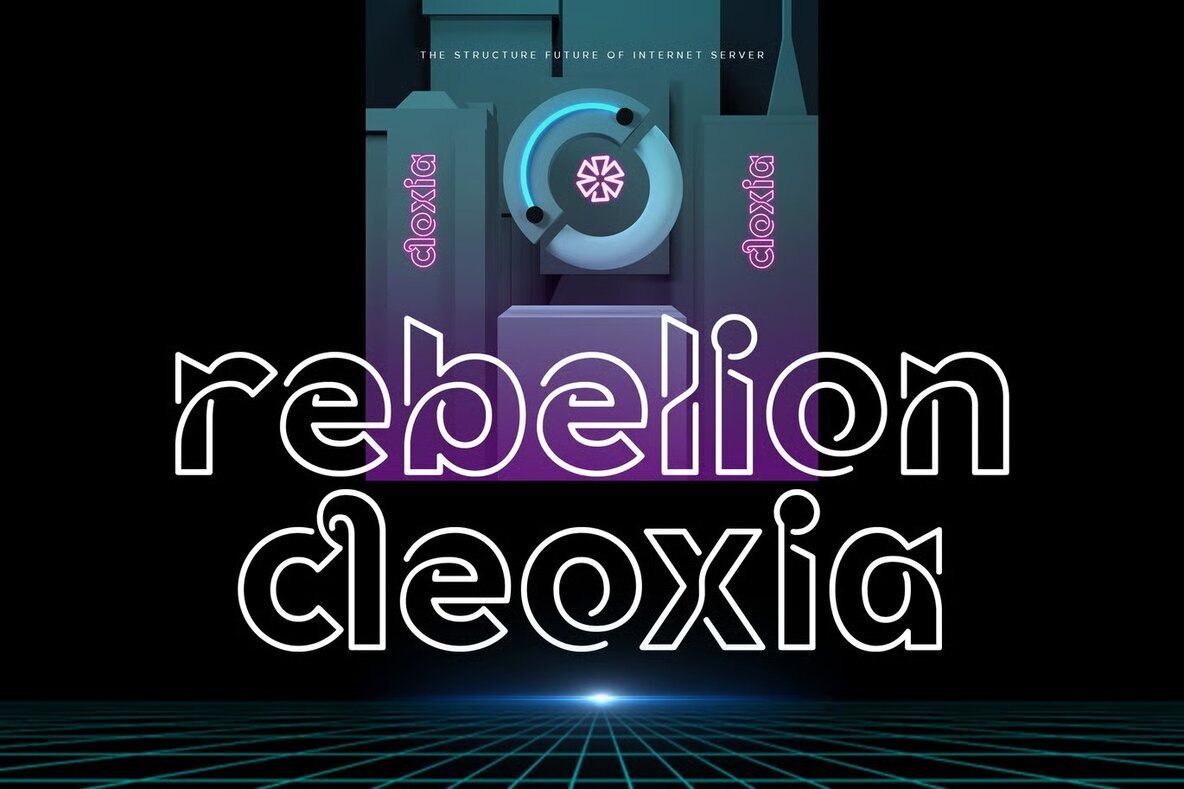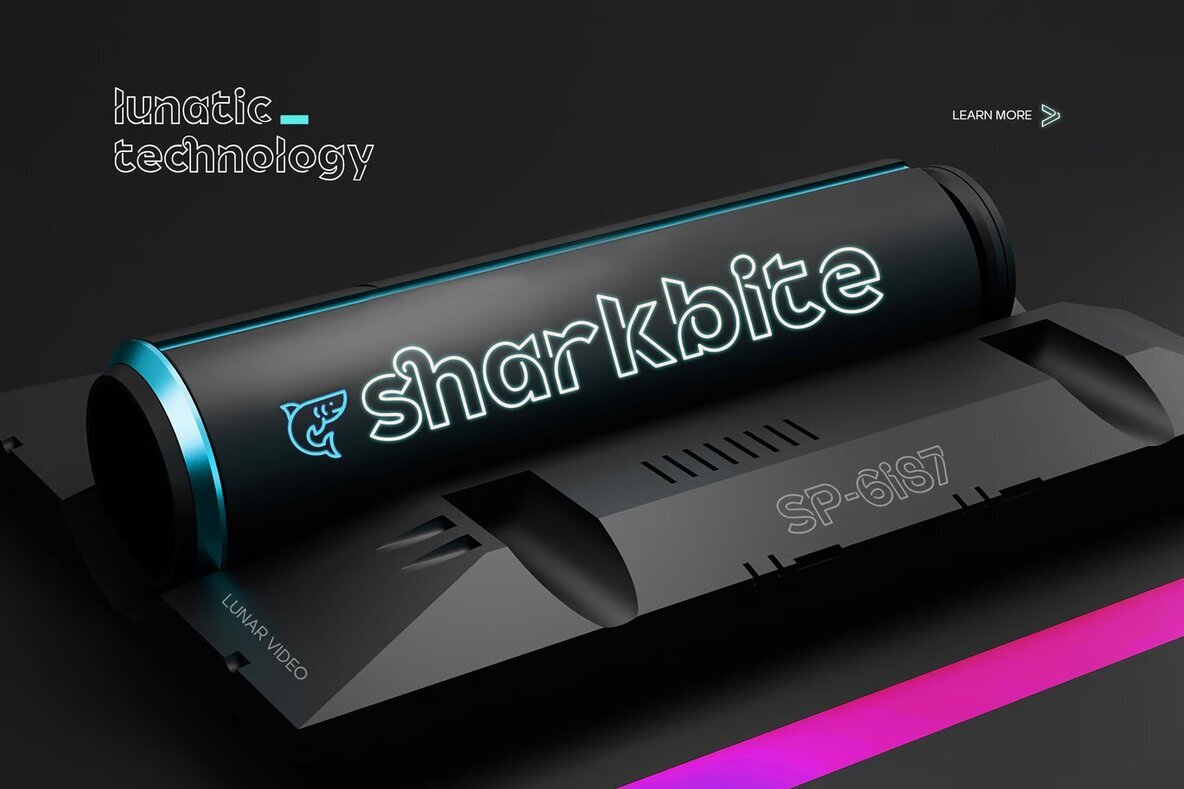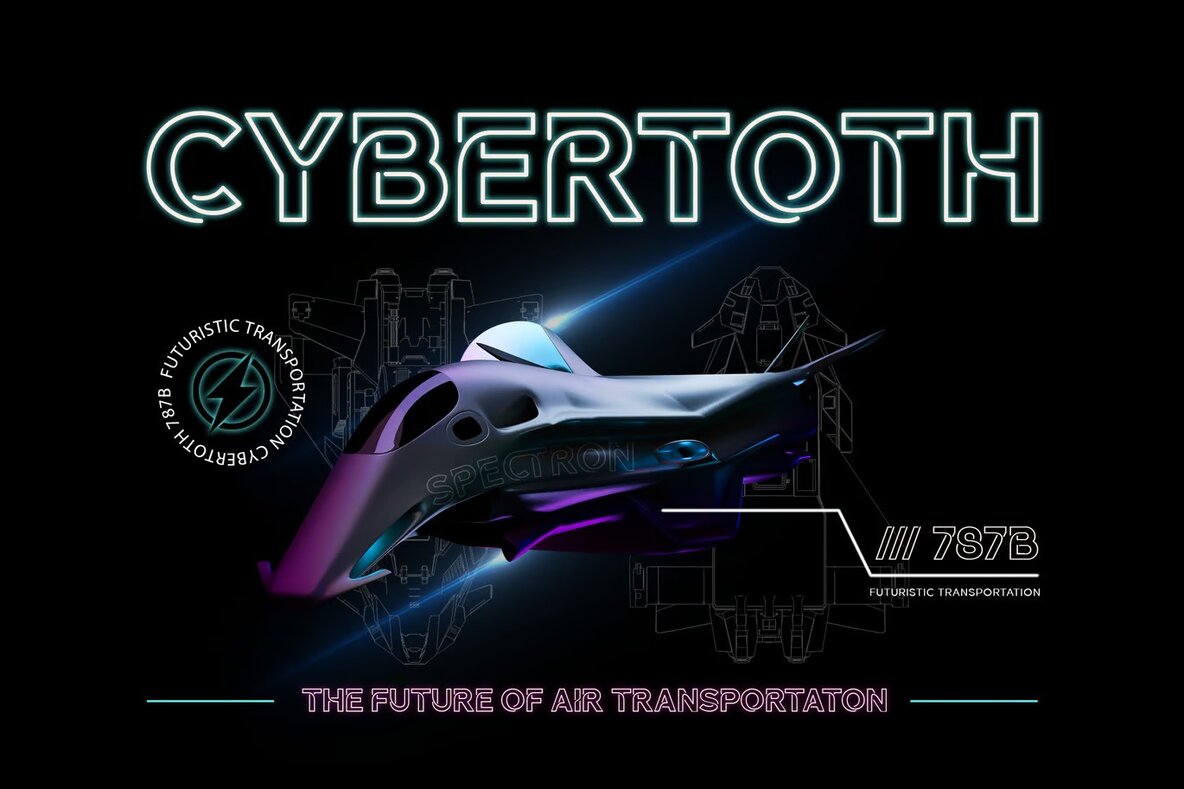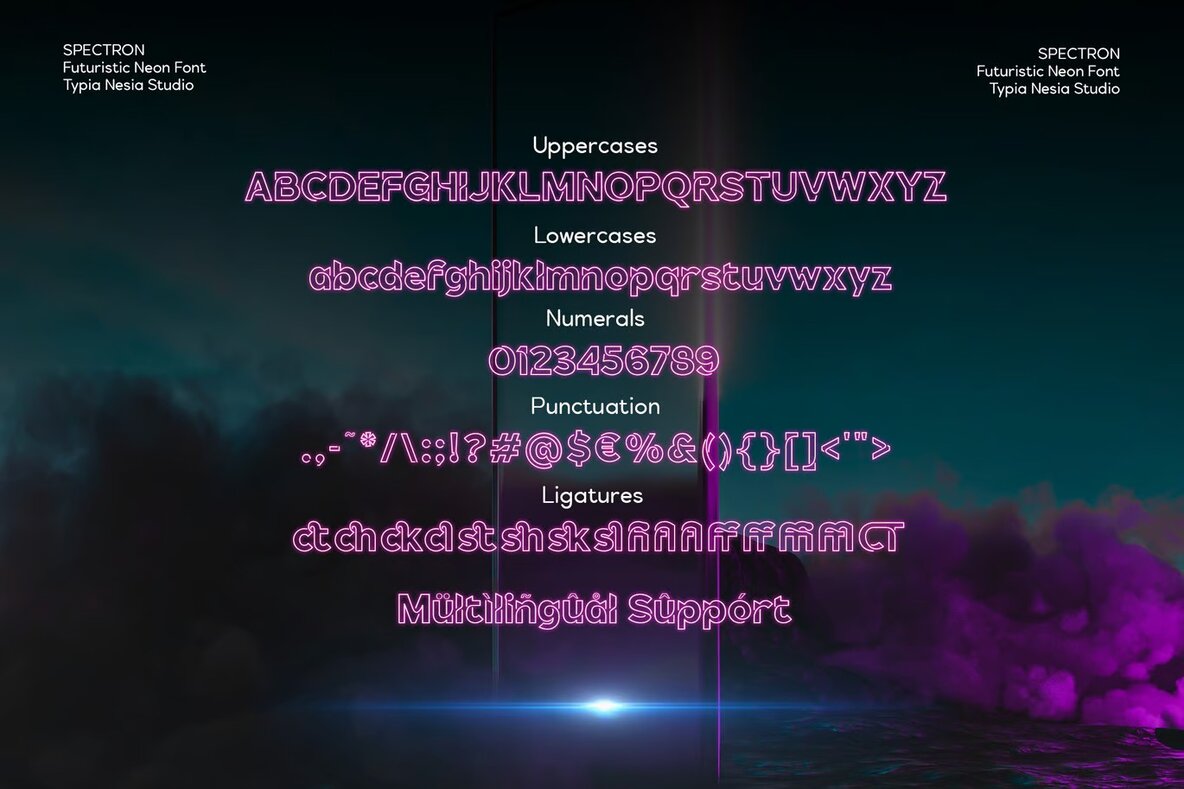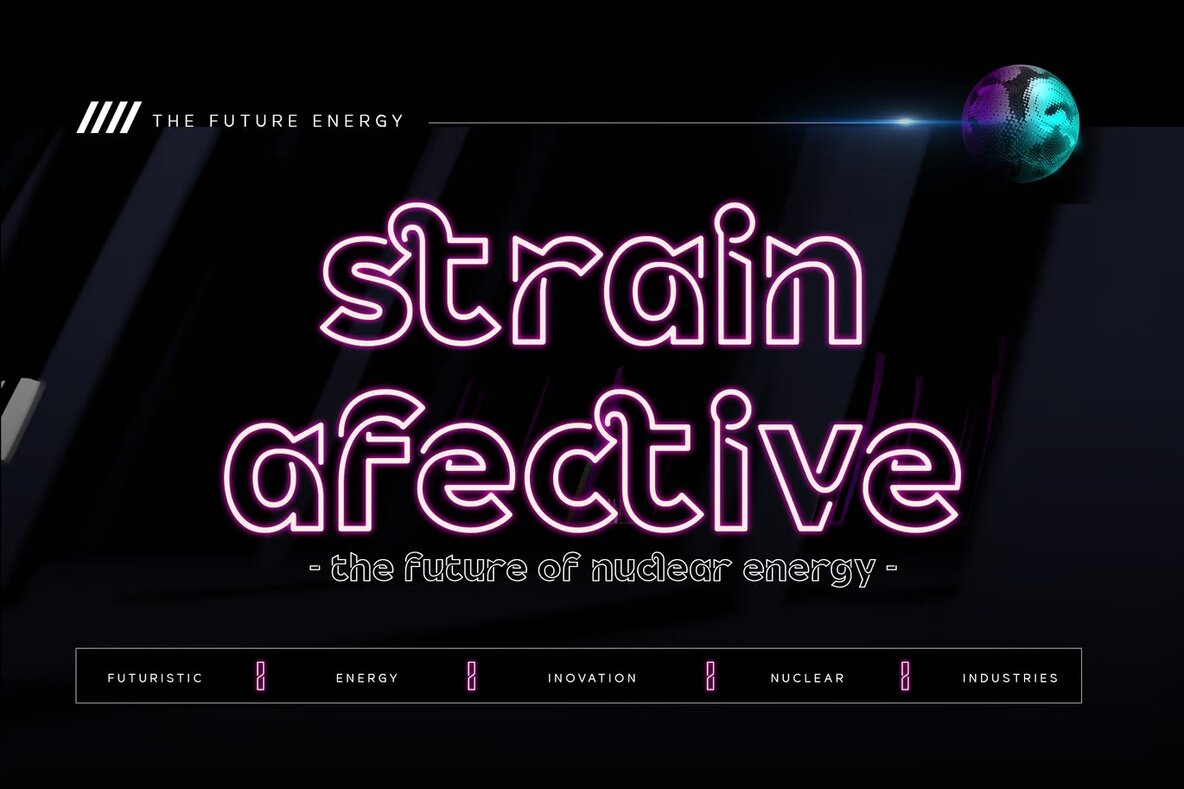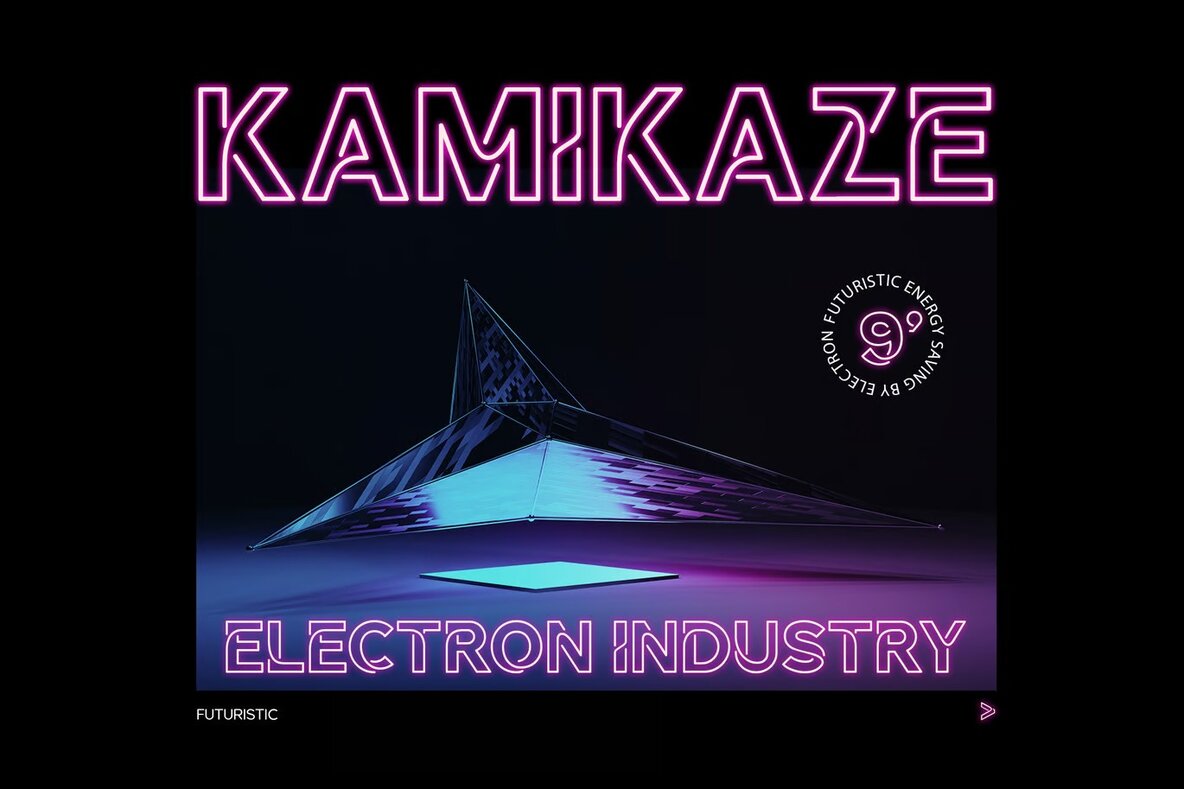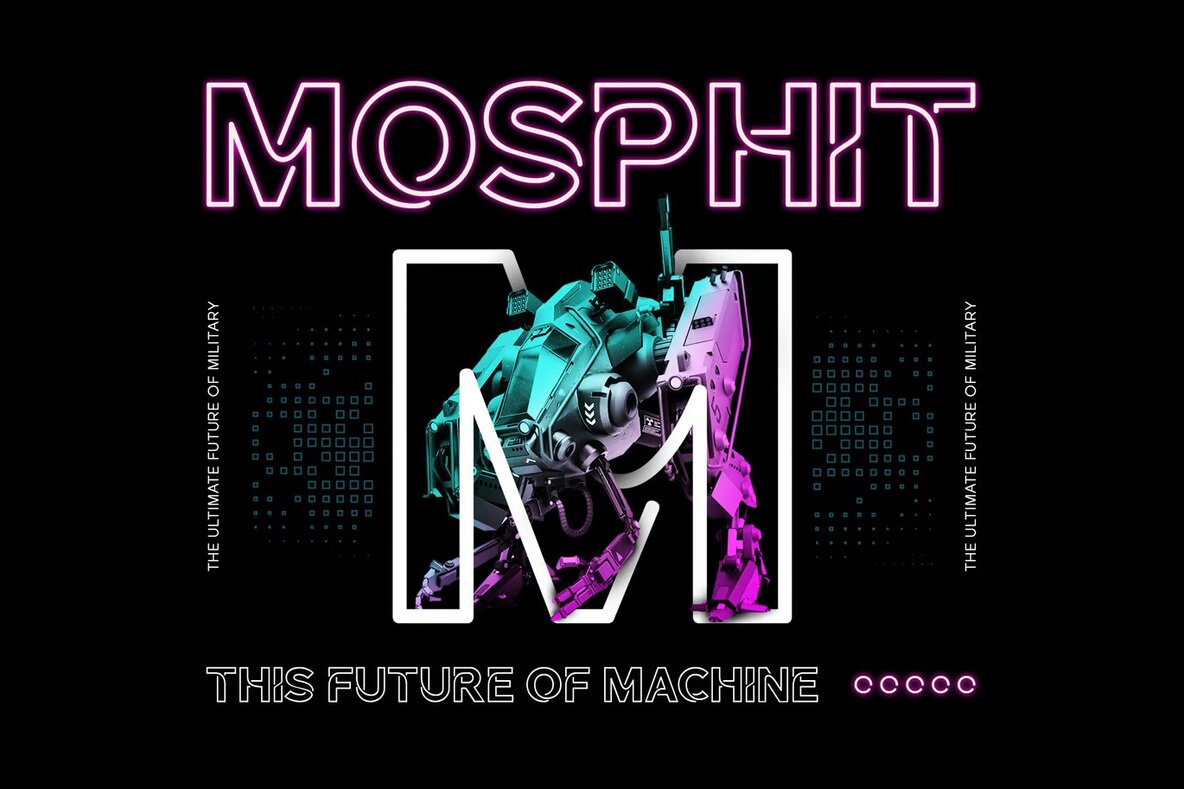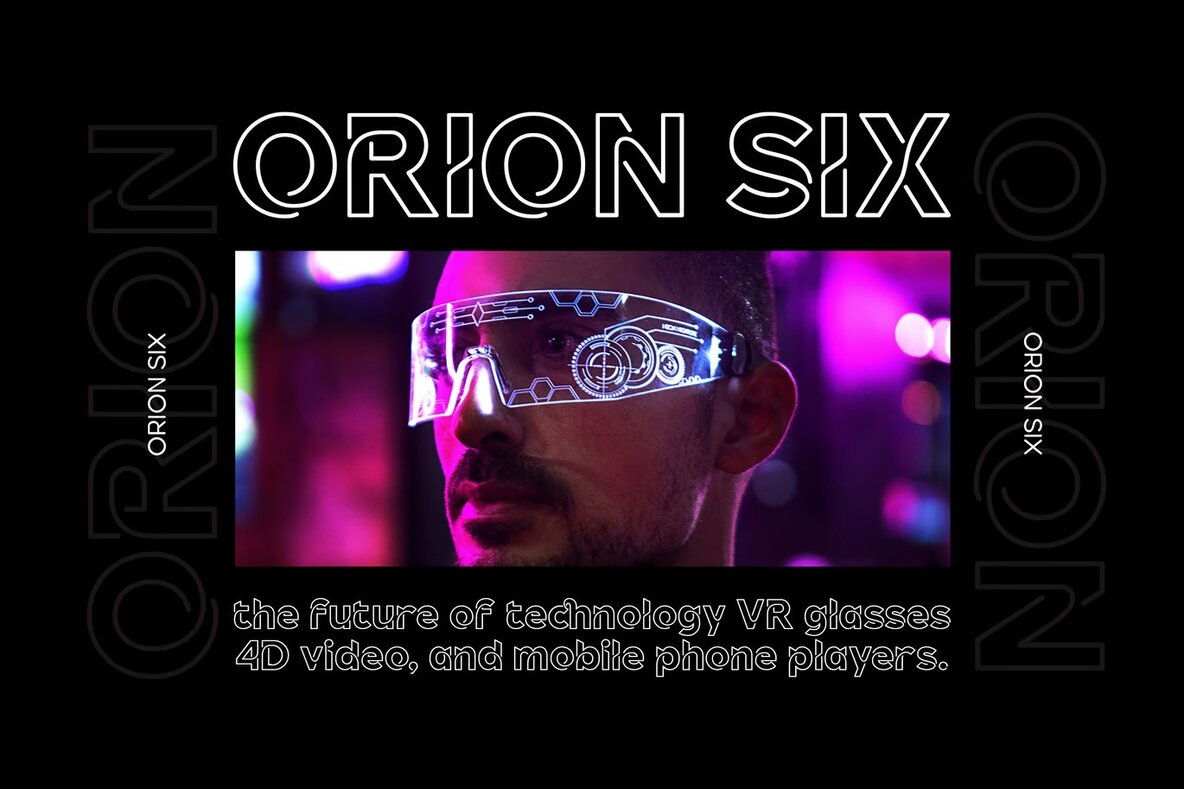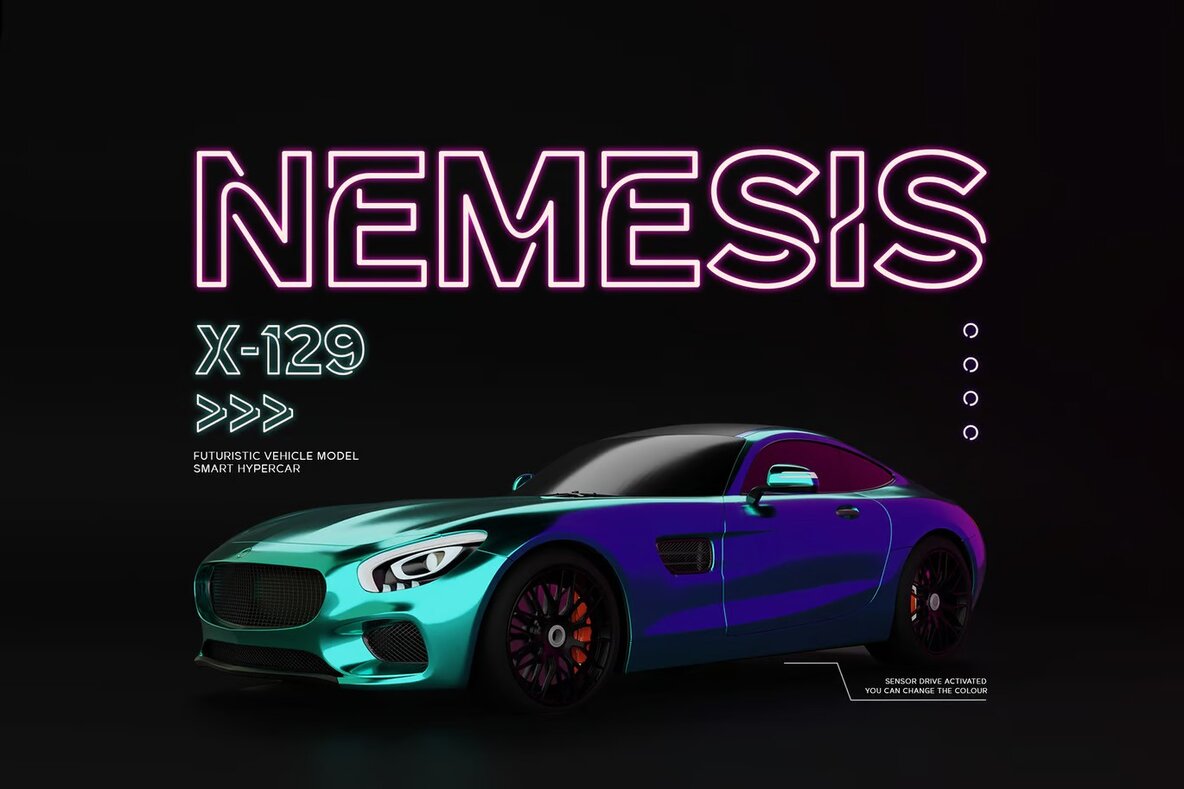
Spectron Font
Spectron Regular
Spectron Neon Display Font brings a striking, techno-scifi aesthetic to any project. Its unique neon outline design is ideal for 80s retro themes, logo branding, editorial layouts, and stationery design. This versatile font is also perfect for creating eye-catching sport designs, vibrant music posters, and dynamic modern advertisements.
Beyond professional uses, Spectron shines in creative contexts such as game industry graphics, blog design, and art quotes. Its bold neon lines make it a fantastic choice for special event invitations, home decor, and book covers, adding a distinctive retro feel that captivates and engages.